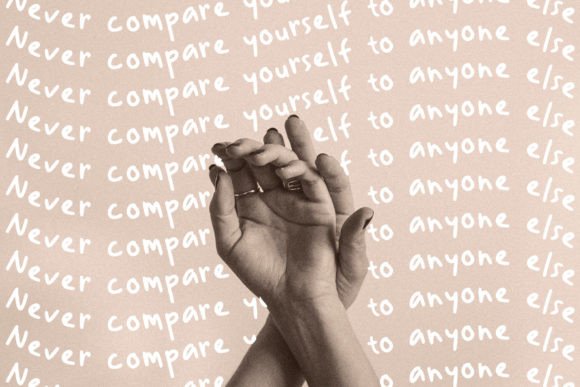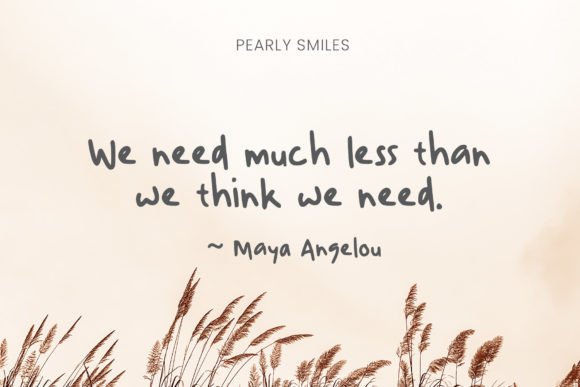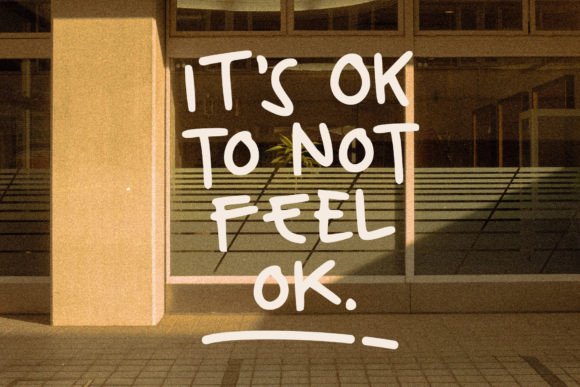
Introduction to Pearly Smiles Font
β€œPearly Smiles,” a delightful handwritten font meticulously crafted with love and attention to detail.
This font encapsulates the essence of joy and brings a touch of whimsy to your design projects β€œPearly Smiles” embodies the playful nature of handwritten script, with its charming curves and natural stroke variations.
Key Features of Pearly Smiles Font
Why Choose Pearly Smiles Font?
Pearly Smiles Font offers exceptional quality and versatility, making it a valuable addition to your design toolkit. Whether you’re creating for personal projects or commercial use, Pearly Smiles Font delivers professional results.